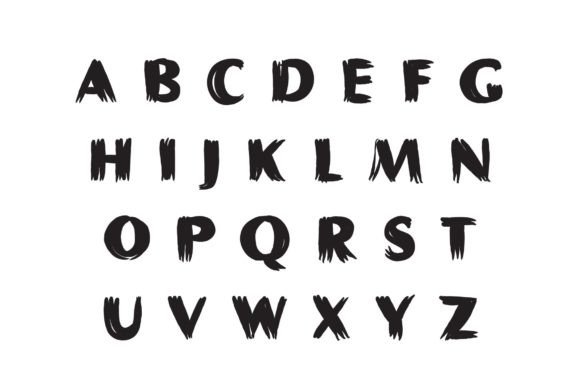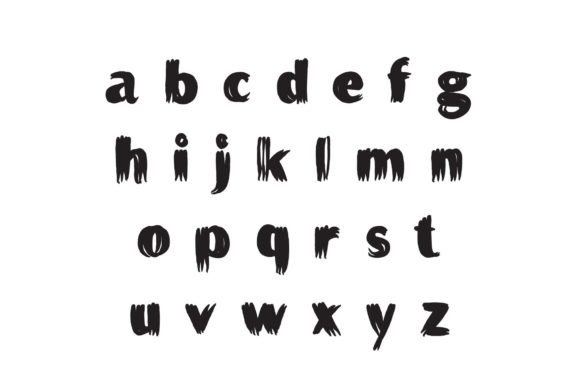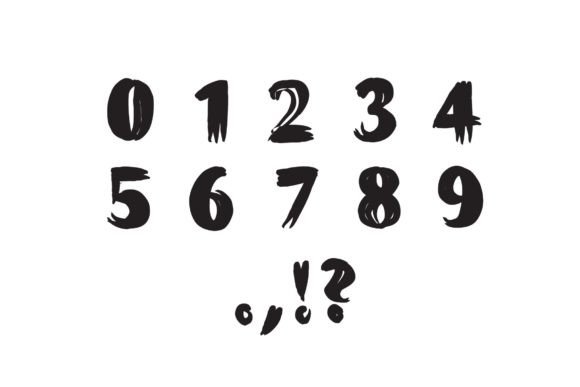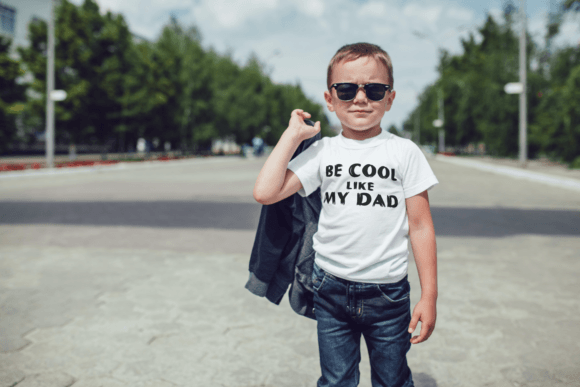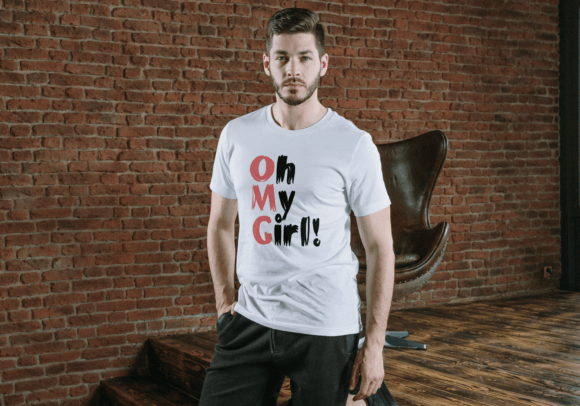
Burr Font: Unleash the Power of Bold and Expressive Typography
In the world of typography, a font can make or break a design project. When it comes to making a statement, Burr Font is an excellent choice. This thick, bold, and expressive display font exudes strength and confidence, making it perfect for a variety of applications. In this article, we’ll dive into the world of Burr Font, exploring its features, uses, and benefits for designers and crafters.
The Power of Burr Font
Burr Font is a versatile and eye-catching typeface that brings a unique personality to any design project. Its bold and expressive nature makes it ideal for headlines, titles, posters, logos, and branding materials. Whether you’re looking to create a striking logo, a captivating poster, or a memorable brand identity, Burr Font is an excellent choice.
Key Features of Burr Font
- Bold and Expressive: Burr Font is designed to make a statement. Its thick and bold strokes exude confidence and strength, making it perfect for attention-grabbing headlines and titles.
- Versatile: This font is suitable for a wide range of applications, from posters and logos to branding materials and packaging.
- Unique Personality: Burr Font has a distinct character that sets it apart from other fonts. Its bold and expressive nature makes it perfect for designs that require a strong personality.
Uses of Burr Font
Burr Font is a versatile typeface that can be used in various design projects. Here are some of the most popular uses of Burr Font:
- Headlines and Titles: Burr Font is perfect for creating attention-grabbing headlines and titles that make a statement.
- Posters and Flyers: This font is ideal for creating eye-catching posters and flyers that grab attention.
- Logos and Branding: Burr Font is a great choice for creating memorable logos and branding materials that exude strength and confidence.
- Packaging: This font can be used for packaging designs that require a bold and expressive typography.
Benefits of Using Burr Font
Using Burr Font in your design projects comes with several benefits. Here are some of the advantages of using this font:
- Instant Recognition: Burr Font’s bold and expressive nature makes it instantly recognizable, making it perfect for designs that require attention-grabbing typography.
- Versatility: This font can be used in various design projects, making it a great addition to any designer’s toolkit.
- Unique Personality: Burr Font’s distinct character sets it apart from other fonts, making it perfect for designs that require a strong personality.
Tips for Using Burr Font
To get the most out of Burr Font, here are some tips to keep in mind:
- Use it Sparingly: Burr Font’s bold and expressive nature makes it perfect for headlines and titles. Use it sparingly to create a strong impact.
- Pair it with Other Fonts: This font can be paired with other fonts to create a unique and visually appealing design.
- Experiment with Colors: Burr Font can be used with various colors to create a design that stands out.
Burr Font is a powerful and expressive display font that exudes strength and confidence. Its versatility, unique personality, and attention-grabbing nature make it perfect for a variety of design projects. Whether you’re a designer or a crafter, Burr Font is an excellent addition to your toolkit. With its bold and expressive typography, you can create designs that make a statement and leave a lasting impression.